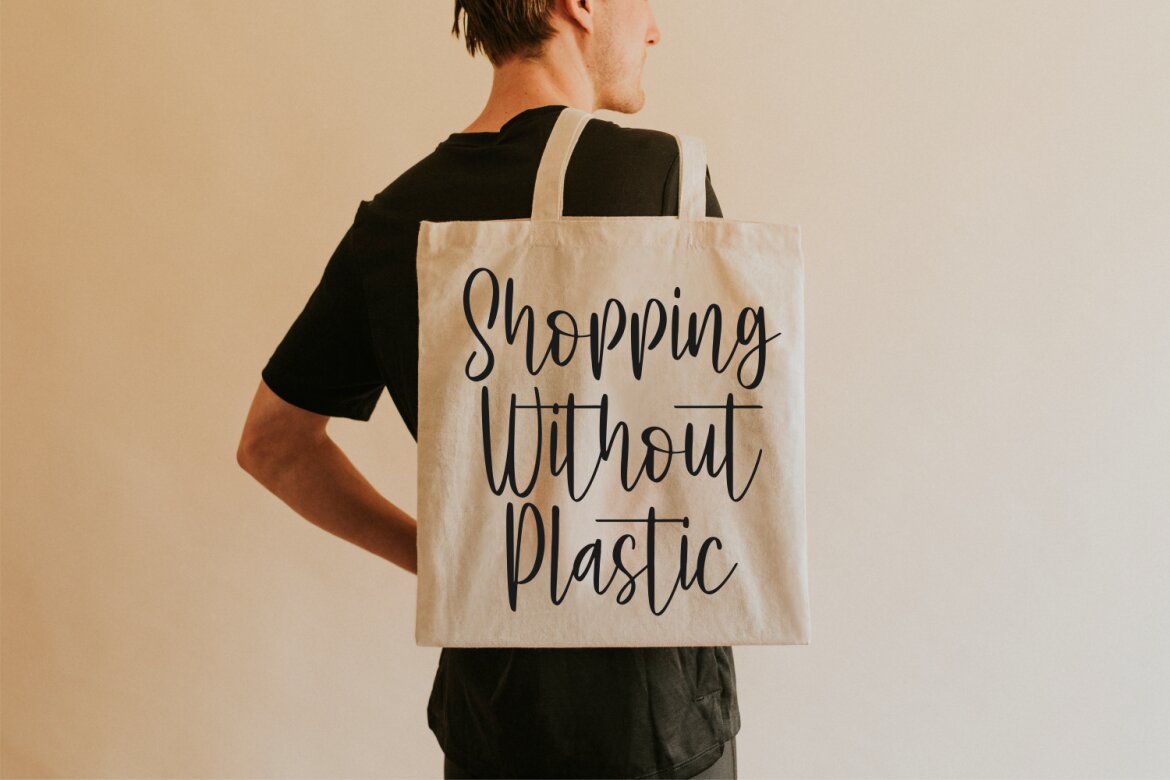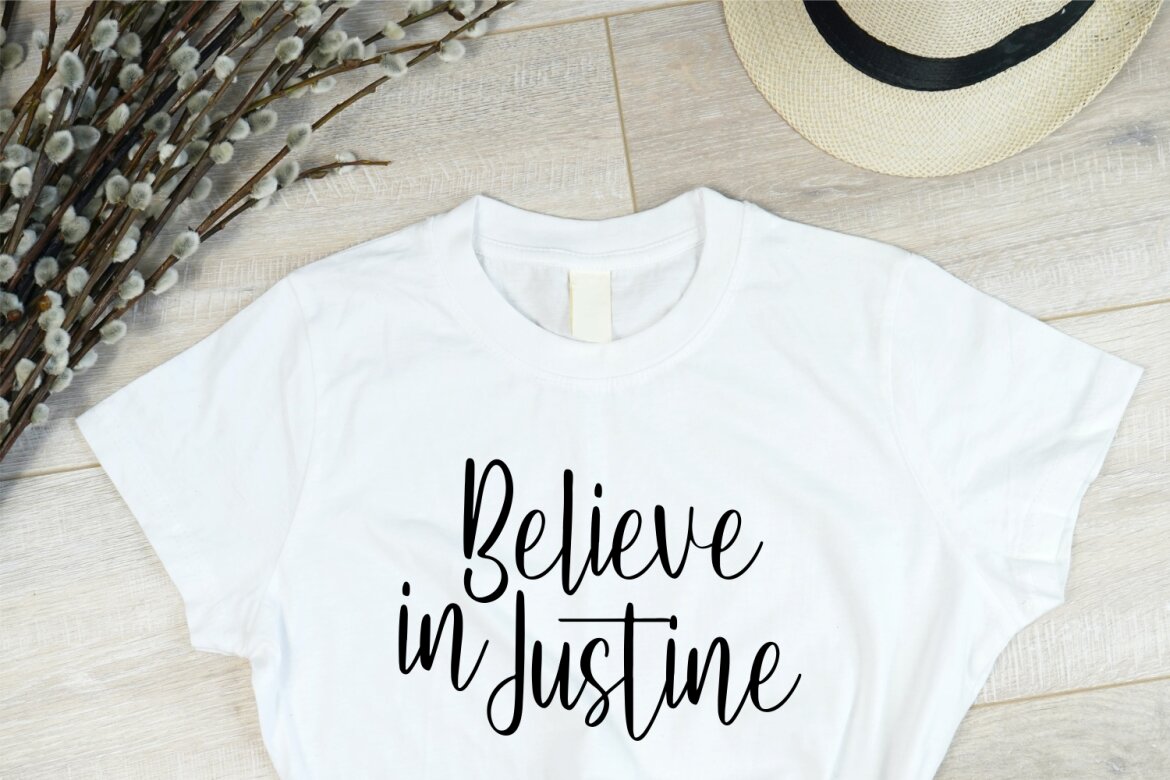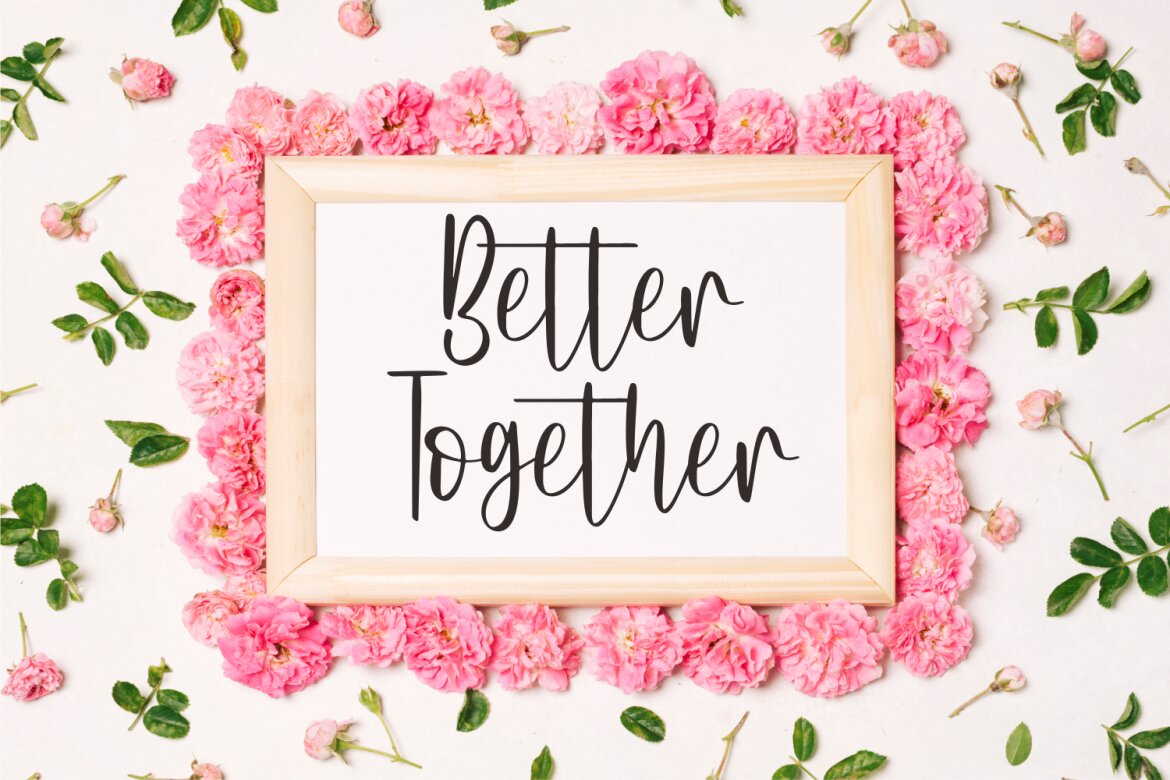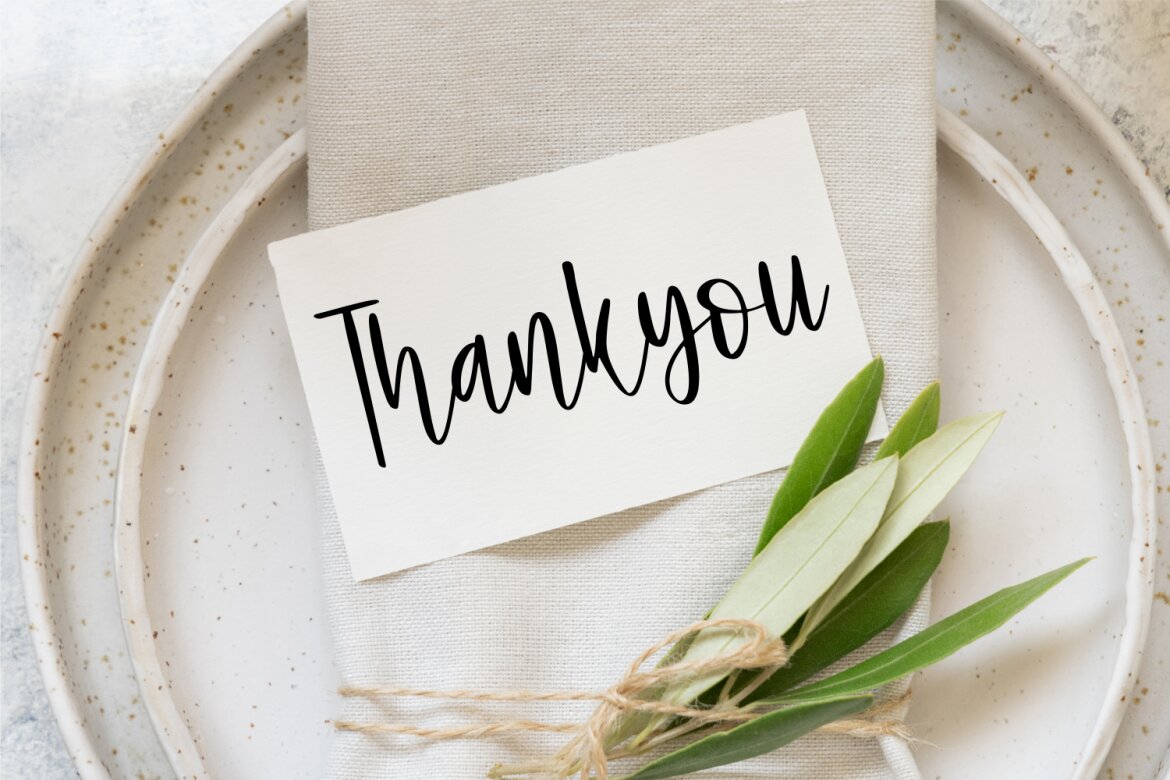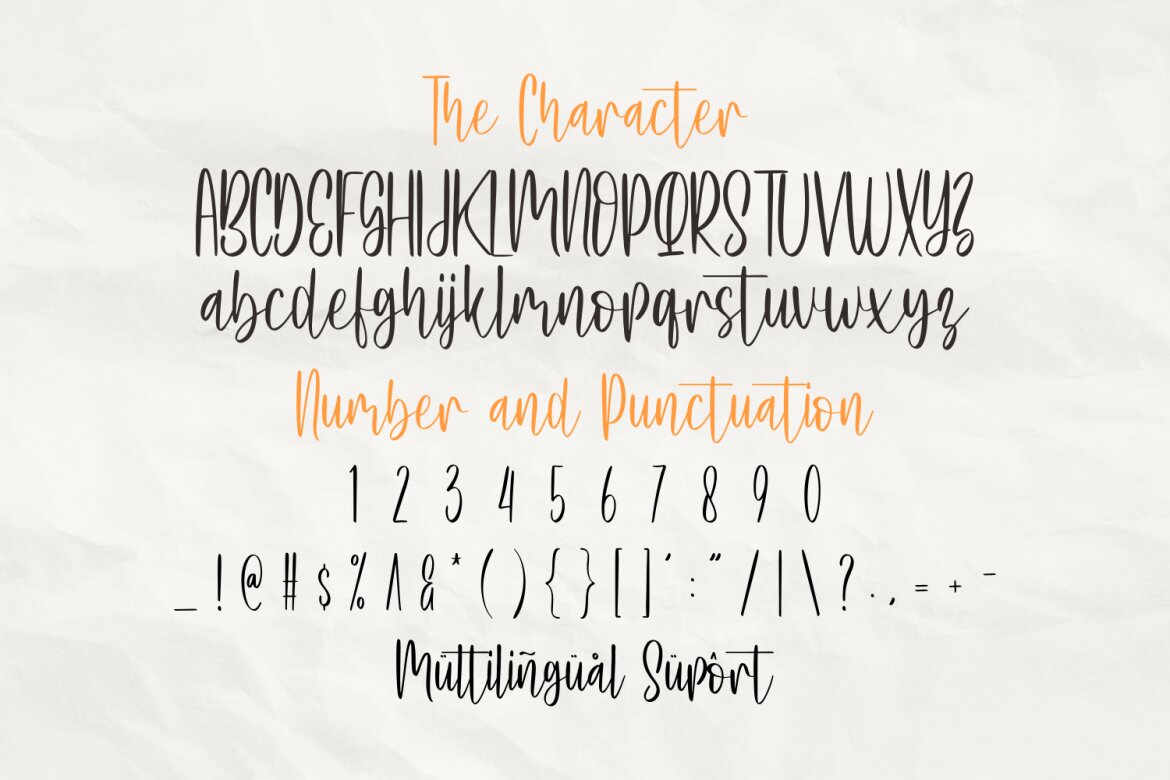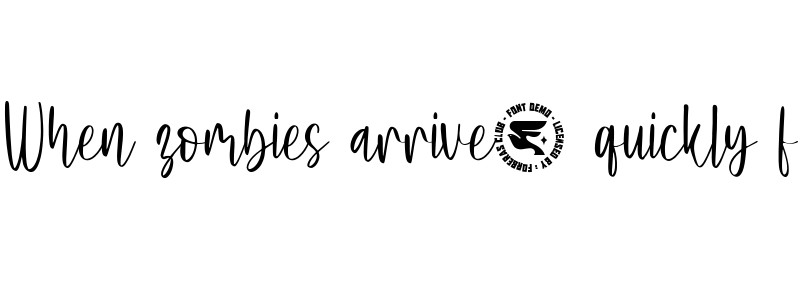
Bellataria - FREE Font
Bellataria Font is script font inspired by modern and ligature characters. It is especially designed for luxury, elegant, feminine projects, Bellataria Font is perfect for creating modern and chic designs such as logos, packaging, editorials and more.